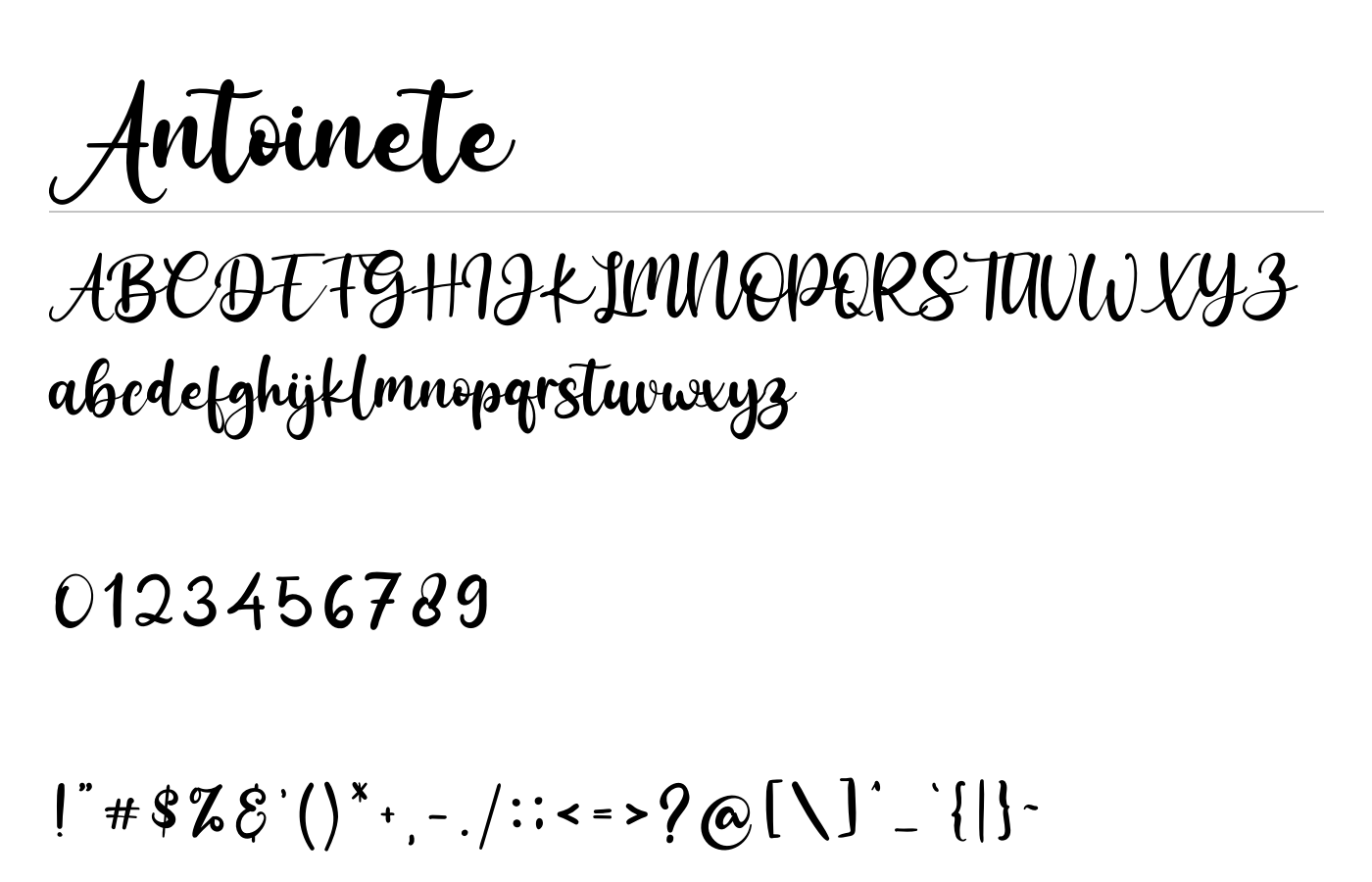
Antoinete is a graceful handwritten script font with a lively, flowing style that combines elegance with a casual charm. Its medium weight and moderate contrast give it good readability, while its smooth, rounded strokes and distinctive letterforms make it perfect for adding a personal, stylish touch. This font works well for invitations, branding, and creative projects that seek a warm, approachable yet refined look.
Antoinete Font
About Antoinete Font
| Font family | Antoinete Font |
| Designer | Typeface©(Kong Font).2020 |